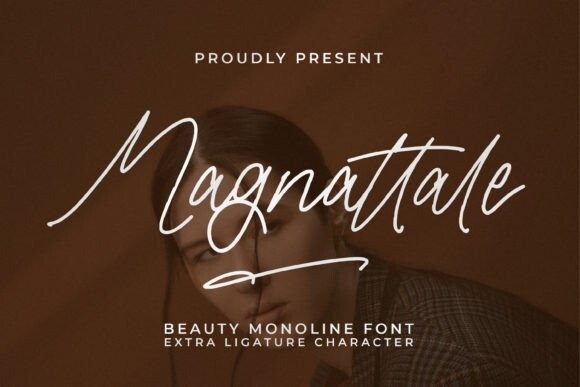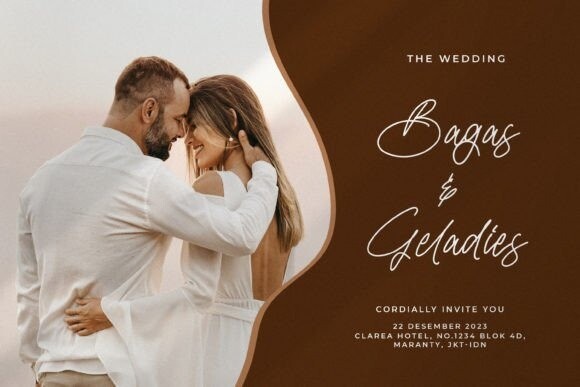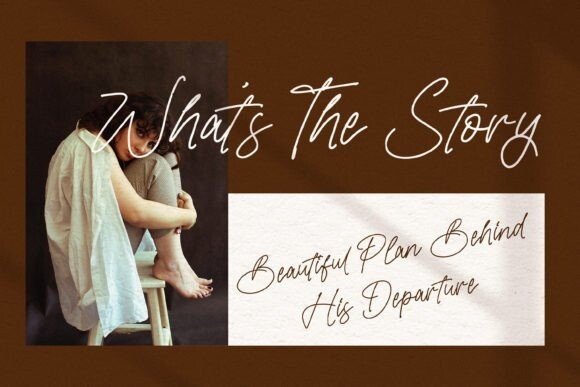
Magnattale Font
Magnattale Font is a beautiful monoline font, perfect for any project like: logos, branding, homeware designs, product packaging, mugs, quotes, posters, shopping bags, t-shirts, covers books, business cards, invitation cards, greeting cards, labels, photography, watermarks, special events and so much more!